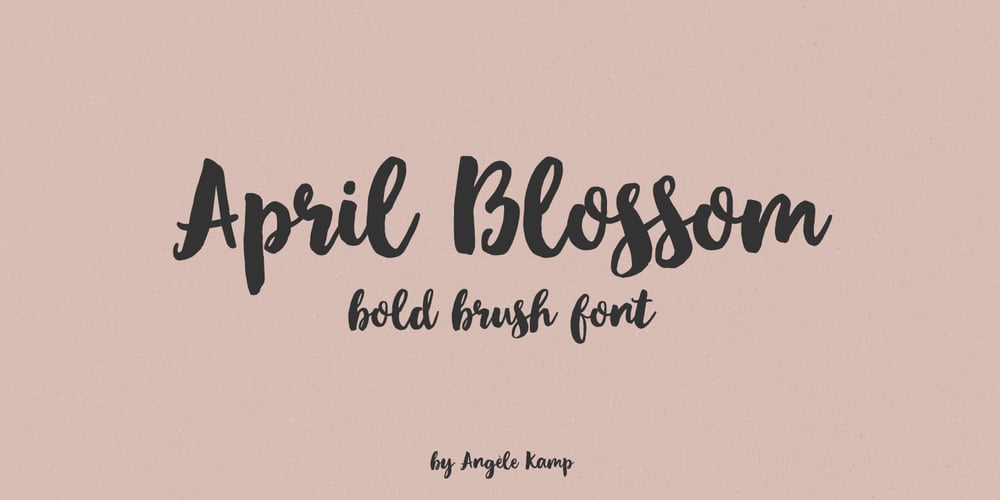
April Blossom Font Family was designed by Angele Kamp and published by Angele Kamp. April Blossom contains 1 styles and family package options. April Blossom is a sweet, brush font with a playful character. This fun will look gorgeous on all your branding materials, cards, quotes, and any other lovely projects you are working on.